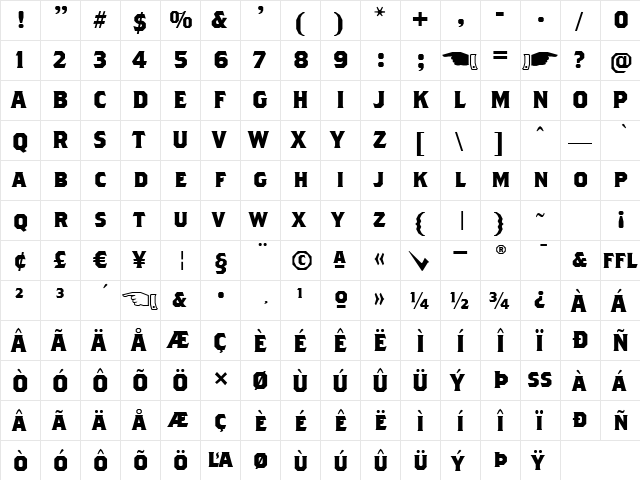
BrothersBold Bold
Design Context for BrothersBold Typeface
BrothersBold takes a measured approach to typography — its balanced proportions and neutral character make it a reliable workhorse for both digital and print work. The heavy weight commands attention and anchors typographic hierarchies.